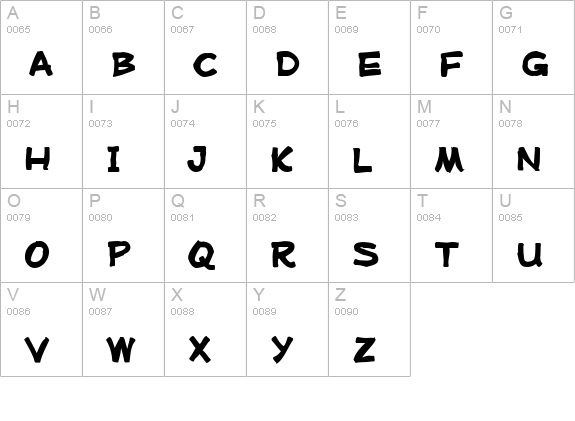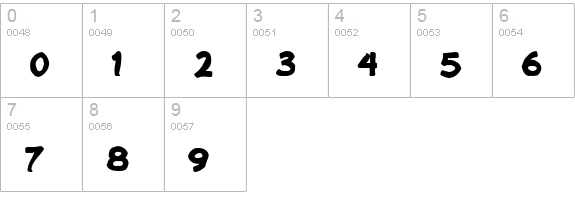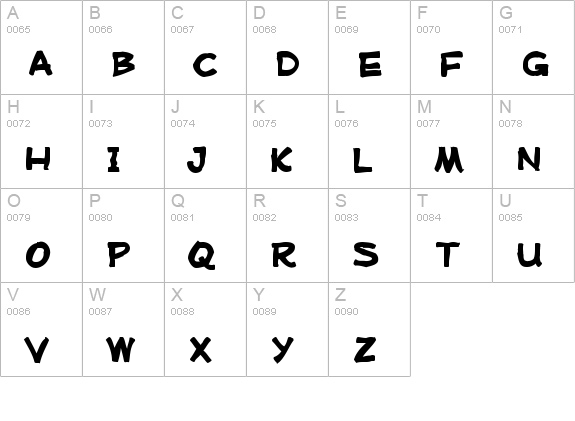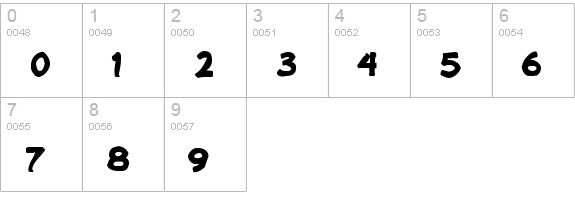
Mufferaw Ink font is a bold and dynamic typeface that exudes a sense of strength and individuality. Its rugged edges and hand-drawn style give it a unique and authentic look, perfect for making a statement in your designs. Whether you're working on a poster, logo, or branding project, Mufferaw Ink font will add a touch of boldness and personality. The best part? Mufferaw Ink font is completely free to download at FontsMarket.com. You can easily access this versatile font and incorporate it into your creative projects without any cost. Embrace the power of Mufferaw Ink font and make your designs stand out with its distinct personality and charm.